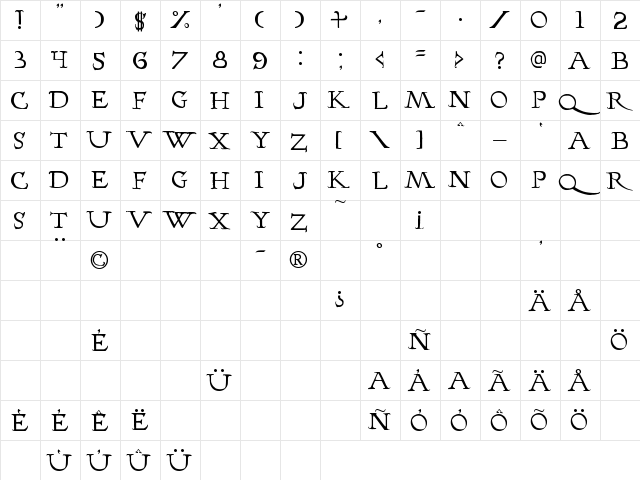
Hopfer Hornbook Regular
| Designer | Staffan Vilcans |
Design Context for Hopfer Hornbook Typeface
Hopfer Hornbook is a composed and adaptable typeface that performs quietly and consistently across a wide range of design contexts.